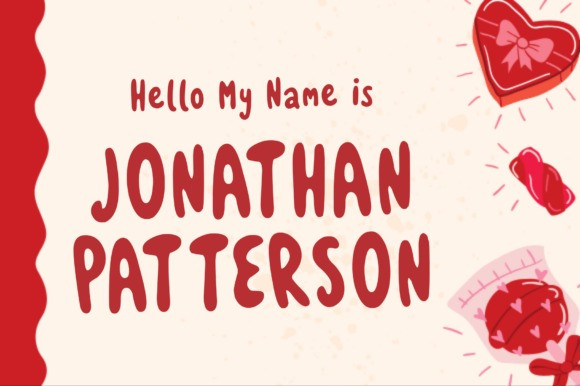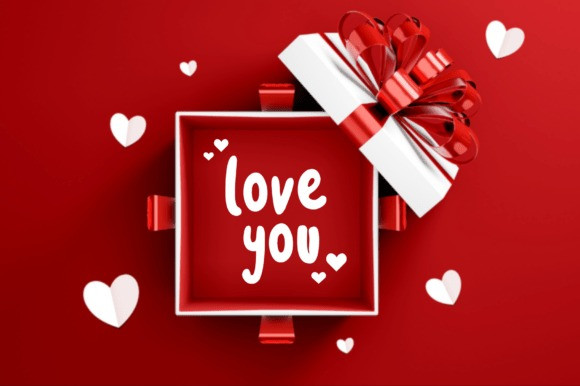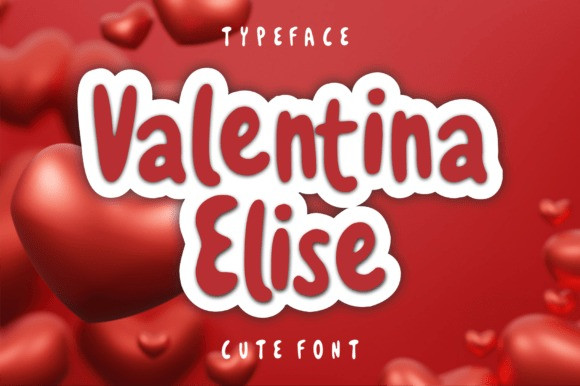
Valentina Elise Font
Valentina Elise Font is a lovely handwritten display font designed to capture the warmth, sweetness, and romance of special moments. Featuring soft rounded letterforms, playful curves, and a charming handcrafted style, this font brings an elegant yet adorable personality to any creative project.
Perfect for Valentine’s Day designs, wedding invitations, greeting cards, romantic quotes, gift packaging, social media content, beauty branding, stickers, and heartfelt crafts, Valentina Elise adds a touch of love and happiness wherever it appears. Its bold, friendly appearance ensures excellent readability while maintaining a cute and affectionate aesthetic.
Whether you’re creating romantic branding, festive Valentine’s merchandise, or charming handmade designs, Valentina Elise is the perfect font to spread love and joy.